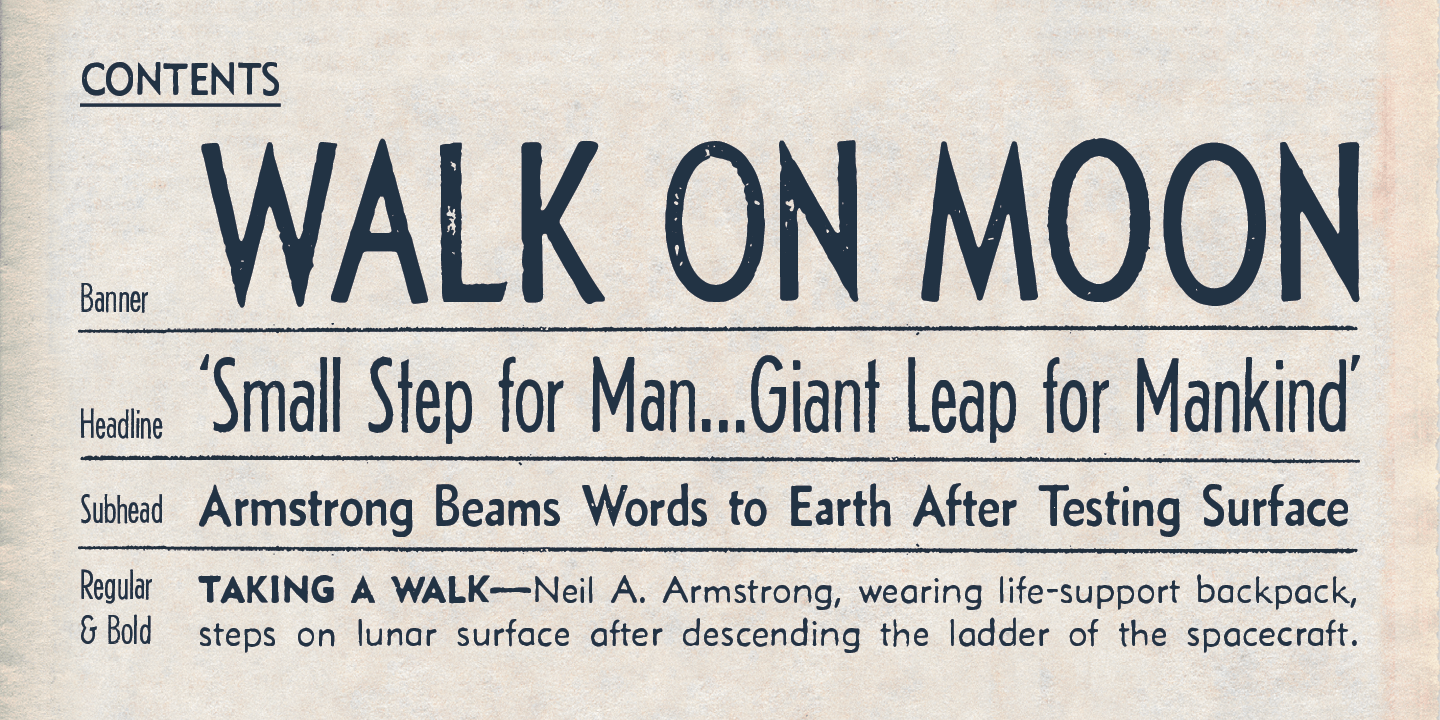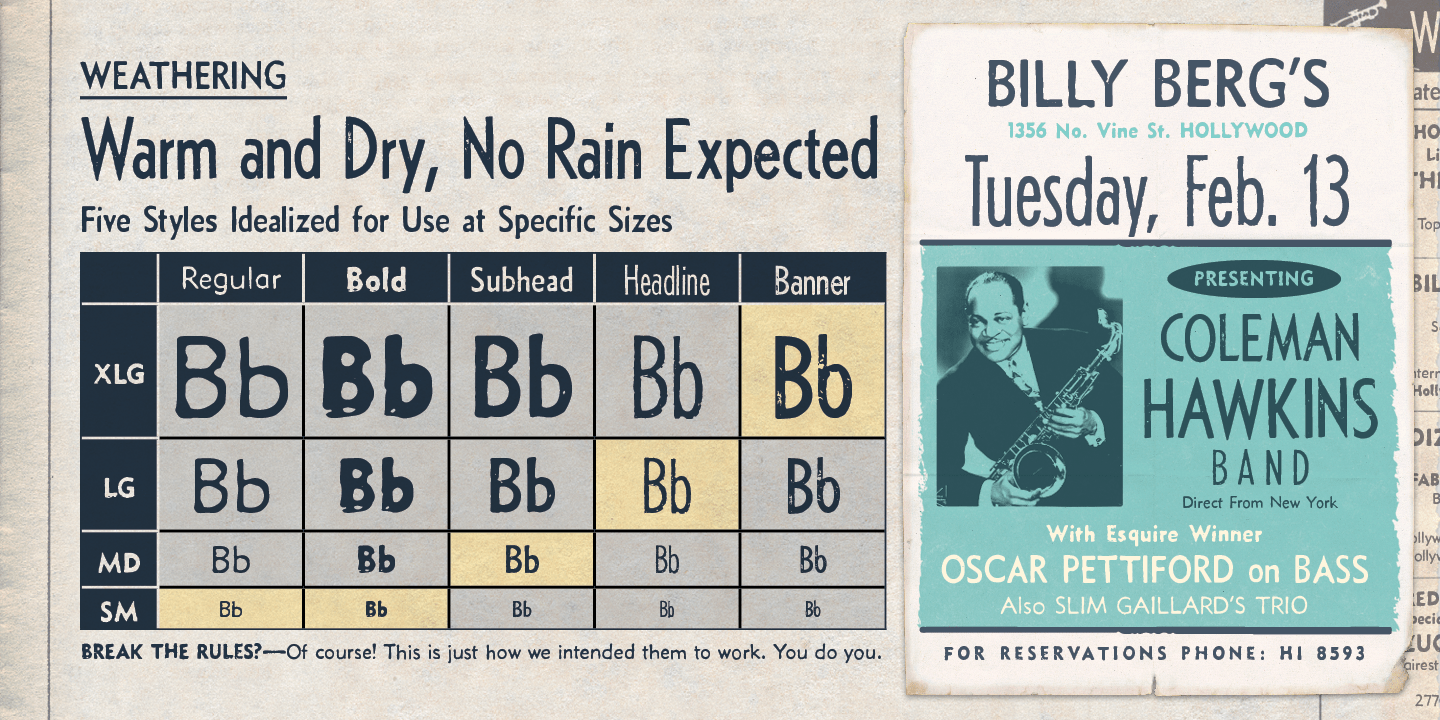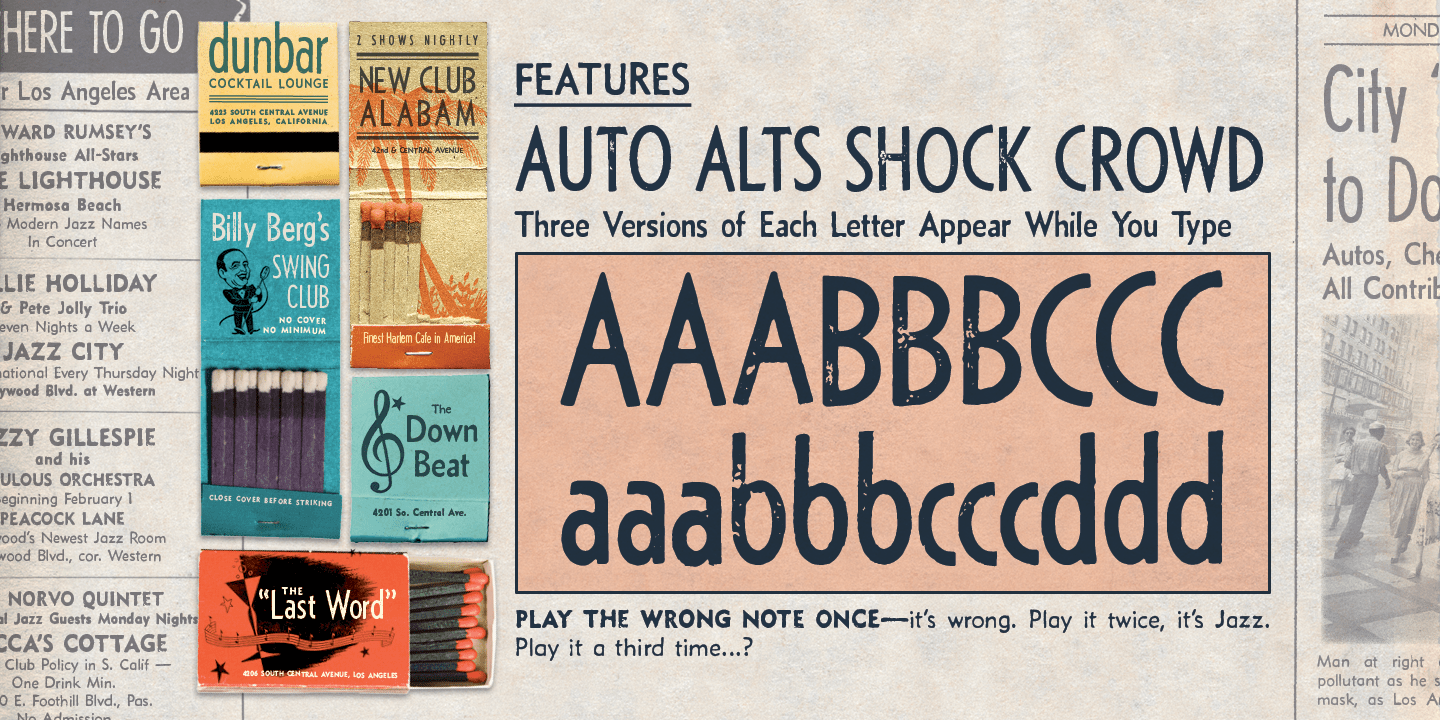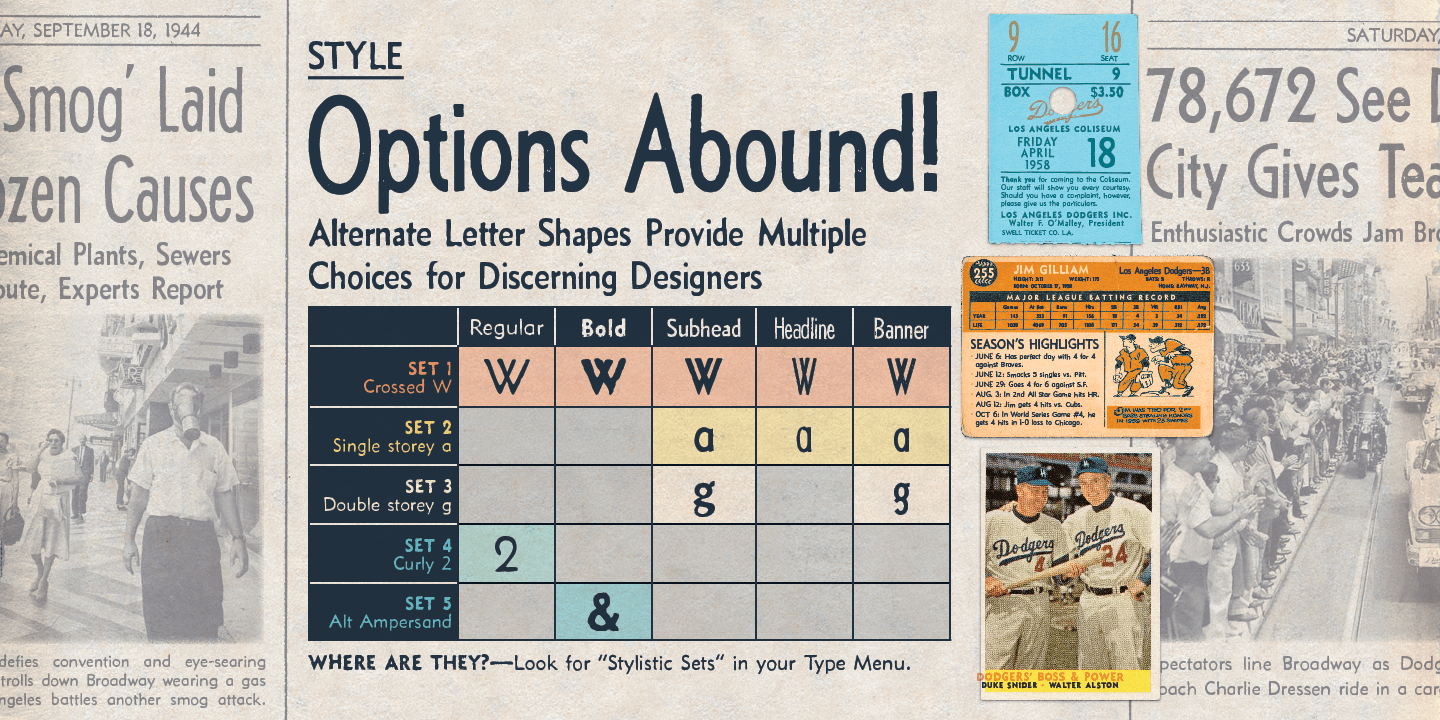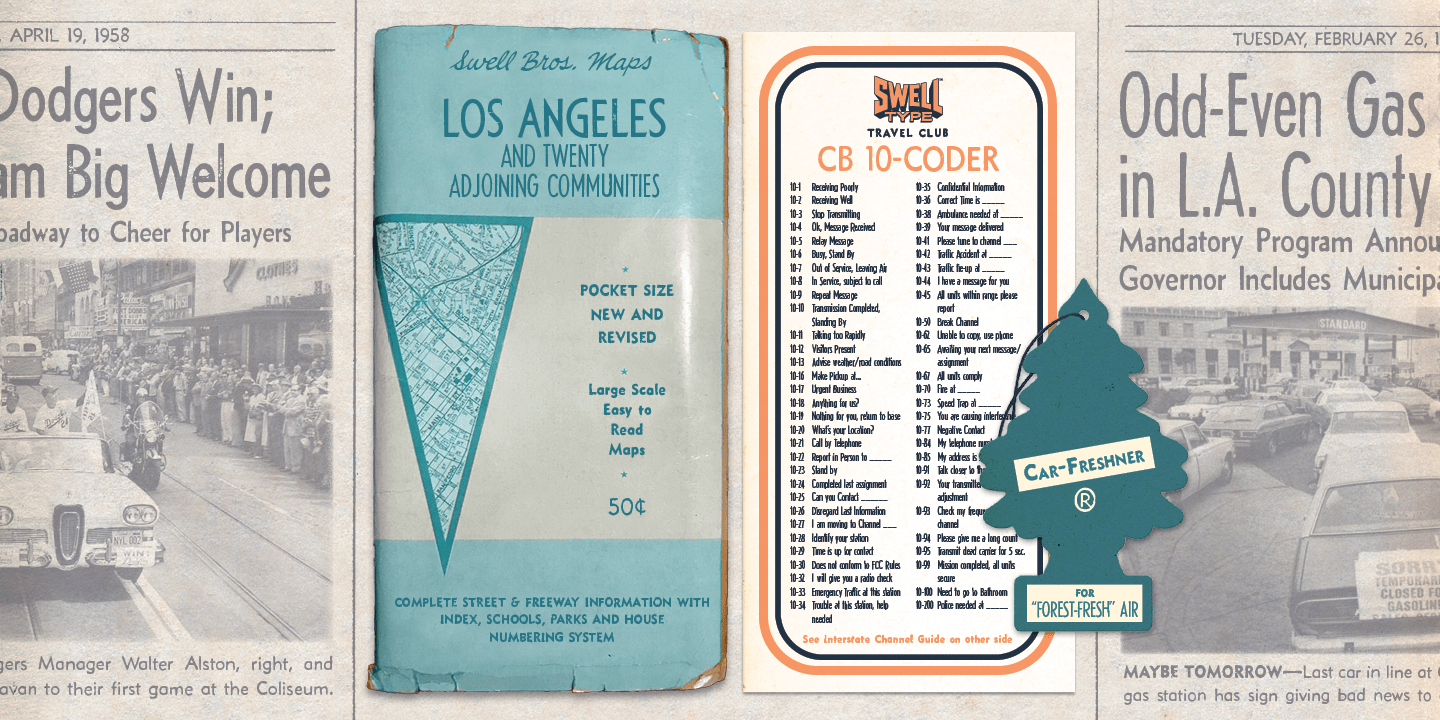
Based on the Headline and Caption styles of the Los Angeles Times from the 1930s to 1970s, Newshound delightfully captures the inconsistency and grunginess of metal type printed on cheap, absorbent newsprint. Three versions of each letter, and…